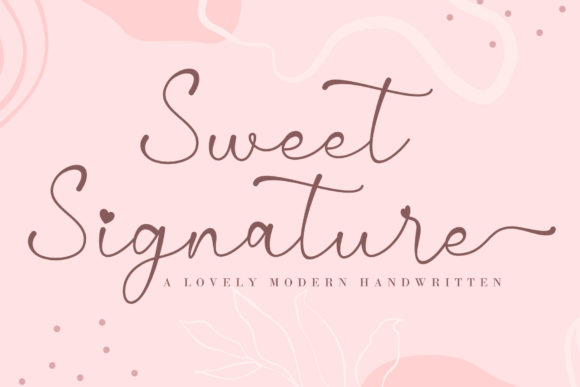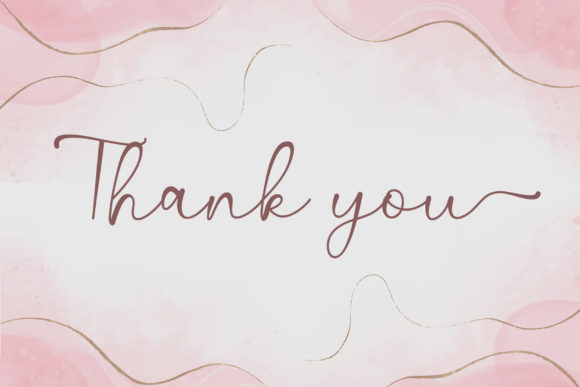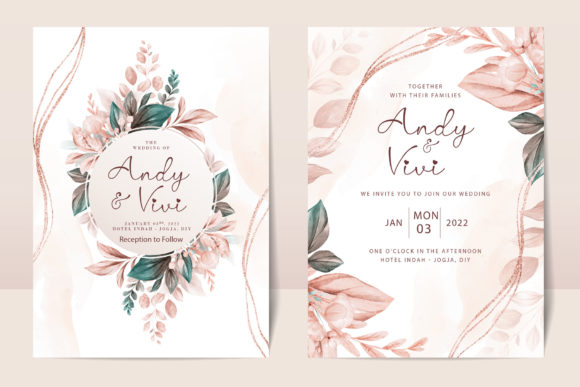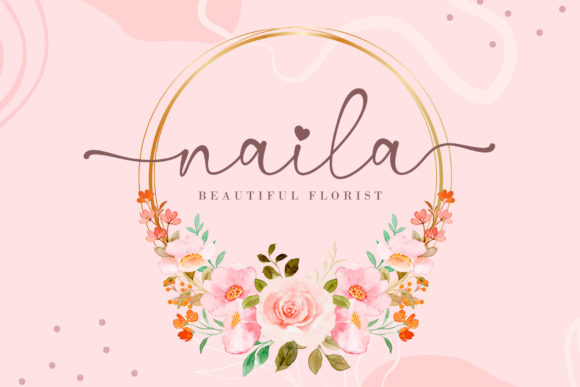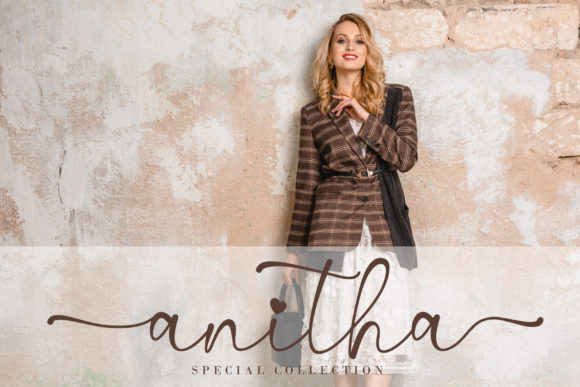
About Sweet Signature Font
Sweet Signature is a romantic and sweet handwritten typeface with characters that dance along the baseline. It will add a luxury spark to any design project you wish to create!